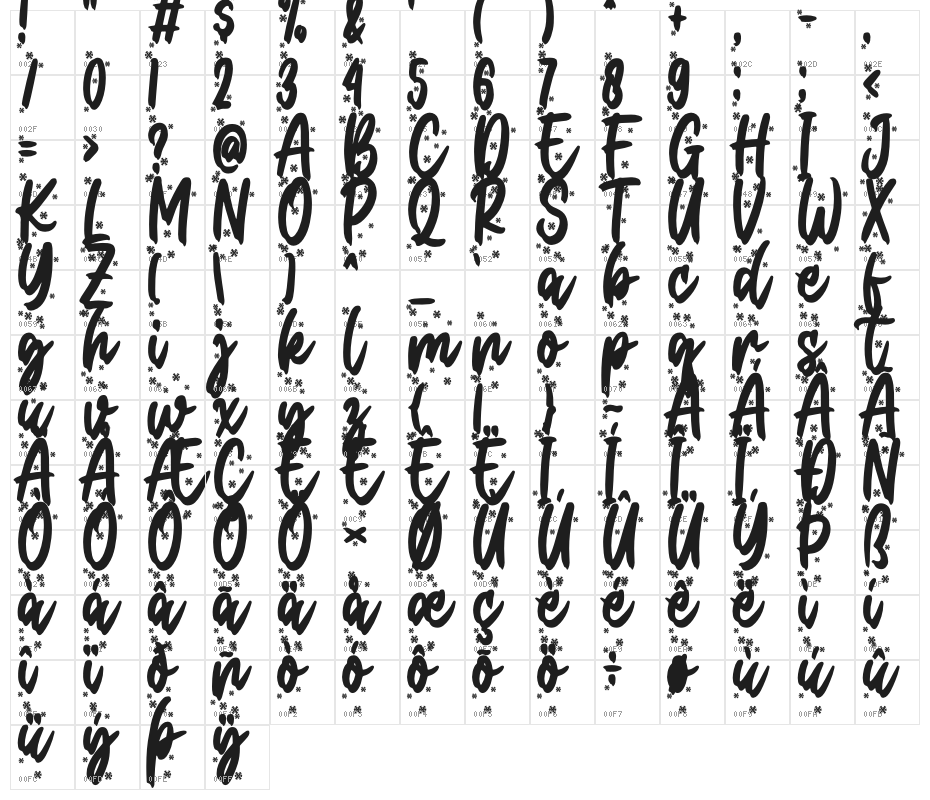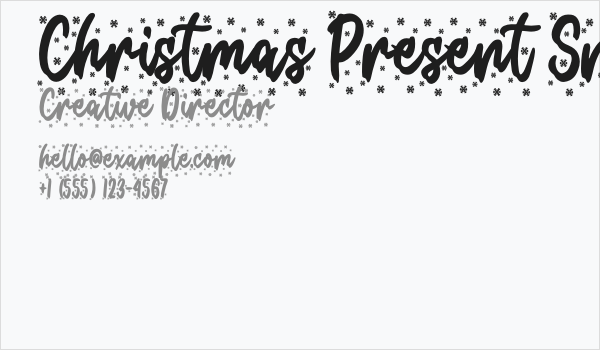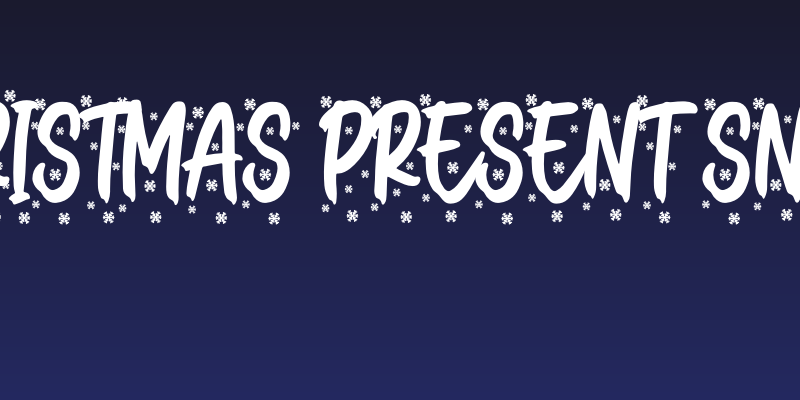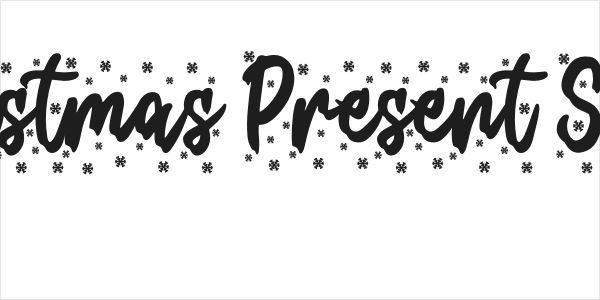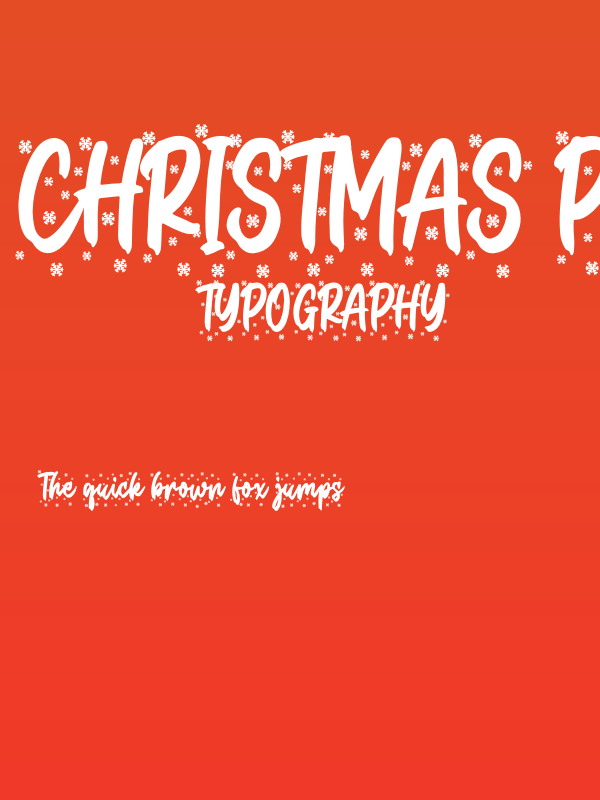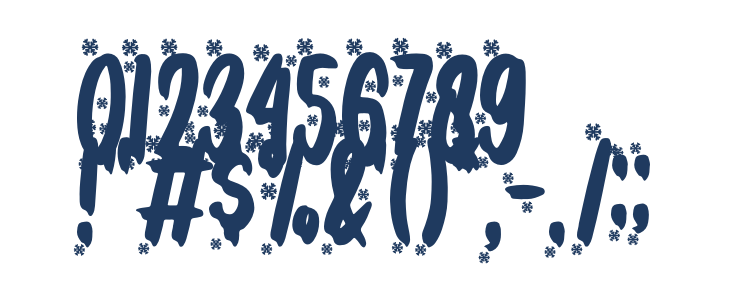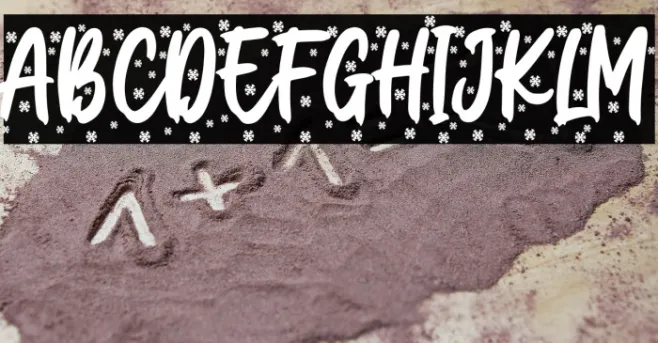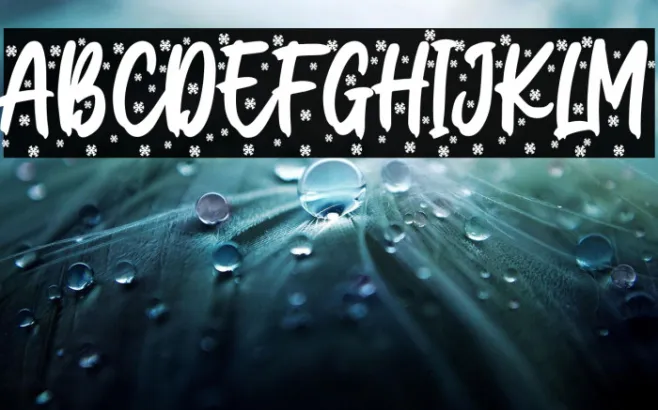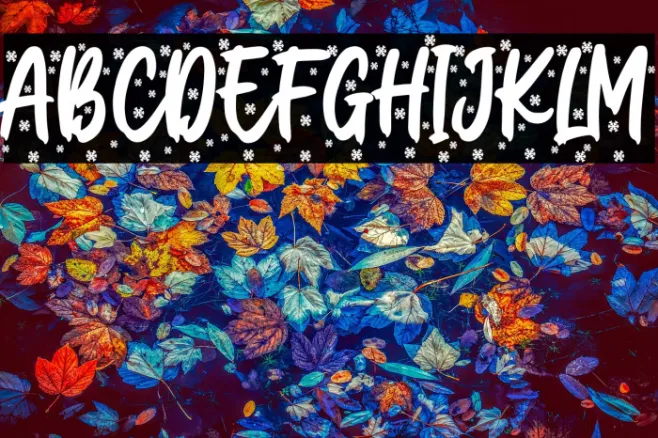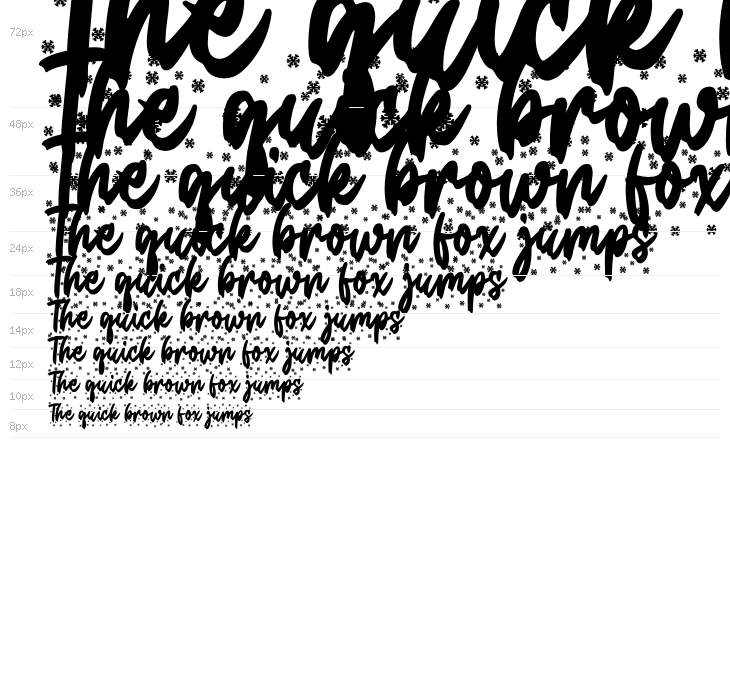
Christmas Present Snow Font
Christmas Present Snow Description
This font exudes a festive and playful spirit, characterized by its handwritten script style that mimics the fluidity of cursive writing. The letters are adorned with small snowflake motifs, enhancing its seasonal charm. The uppercase and lowercase letters are well-balanced, with a consistent flow that suggests a sense of movement and joy. The numbers and special characters maintain the same lively aesthetic, making it suitable for holiday-themed designs. The strokes are bold and confident, with a medium contrast that adds to its readability while retaining a whimsical touch.
| Proposed Projects | Ideal for Christmas cards, holiday invitations, festive branding, and seasonal advertisements. |